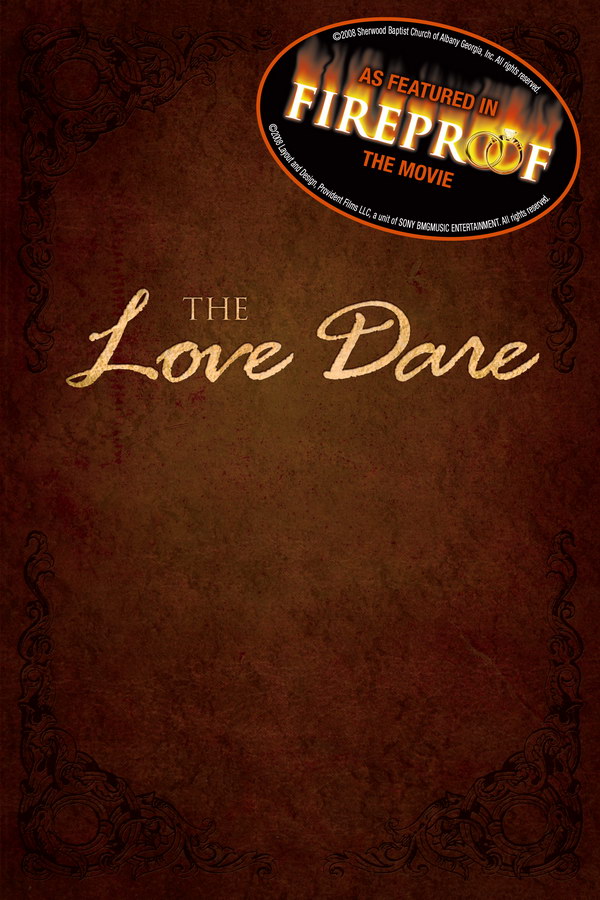
The Love Dare Font
BookThe Love Dare is a Christian book written by Alex and Stephen Kendrick, which presents a 40-day challenge for married couples to improve their relationship by practicing unconditional love, sacrifice, and forgiveness.
The casual brush script font used for the lettering of "Love Dare" on its cover is most likely Rage Italic. Ron Zwingelberg designed this typeface, which has a rough, textured edge. Further information about this font can be found here.